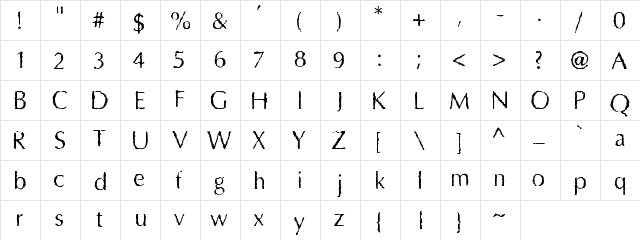
Groopa Seven Regular
Design Context for Groopa Seven Typeface
Groopa Seven offers clean, dependable letterforms without strong stylistic allegiance, making it a practical choice for designers who need flexibility.
Pro Tip: Pair Groopa Seven with a font of contrasting weight or personality to build a more expressive typographic hierarchy.